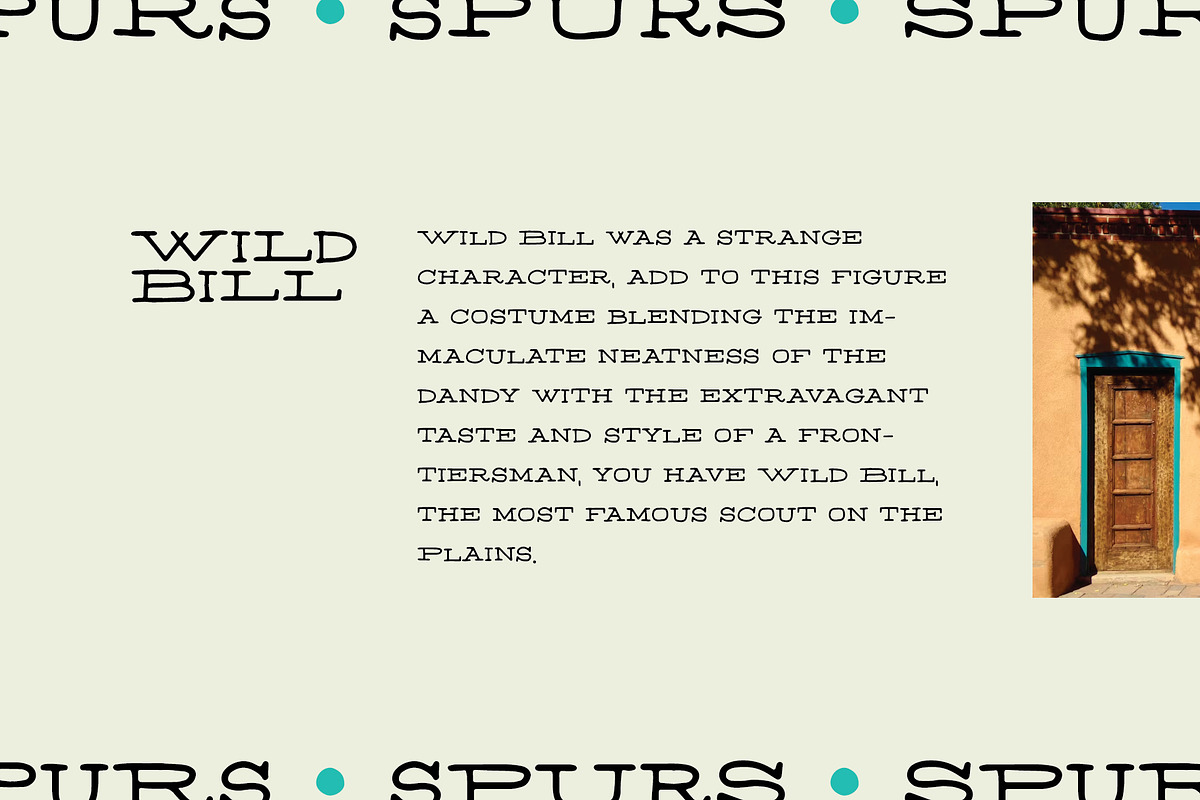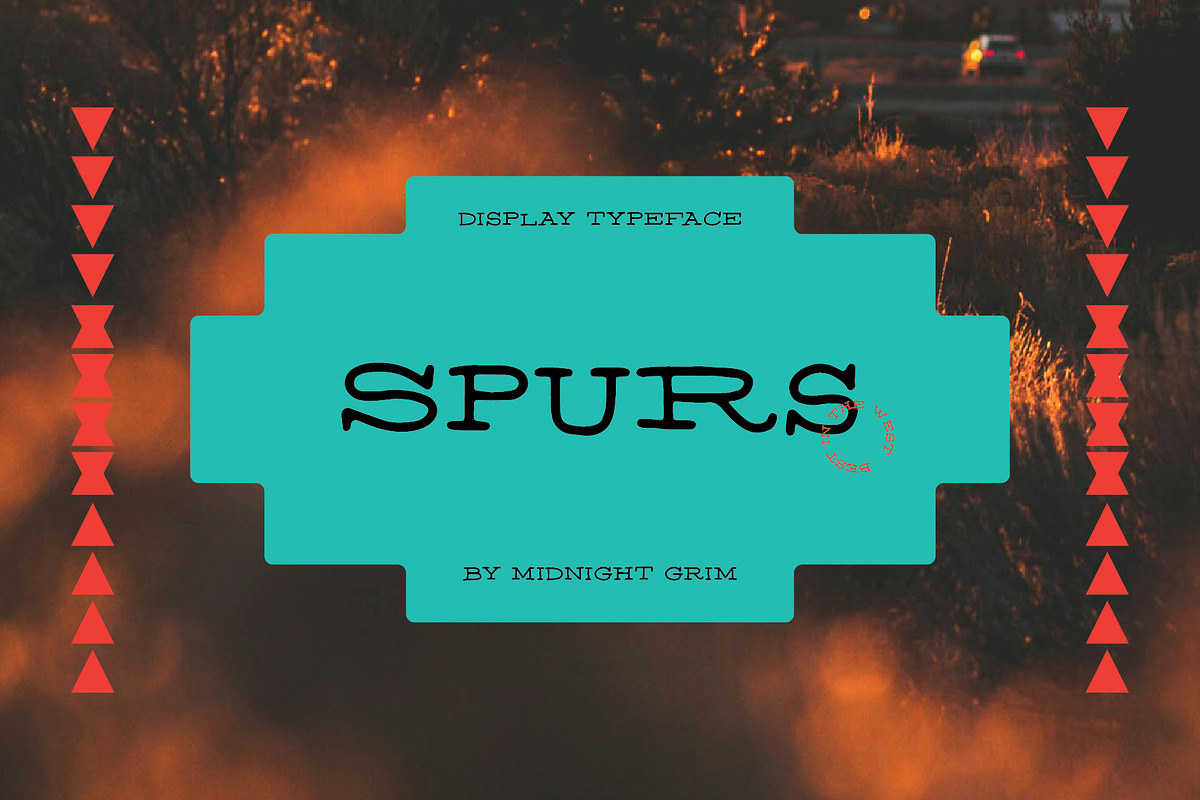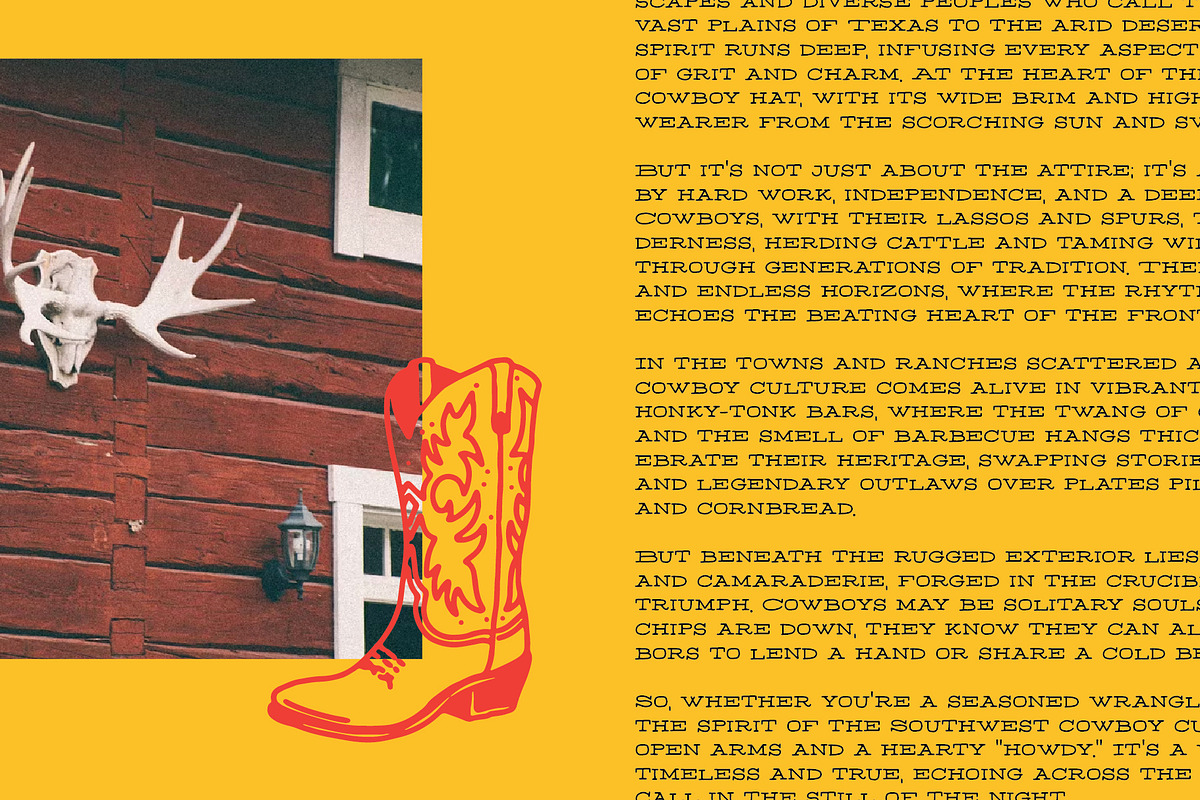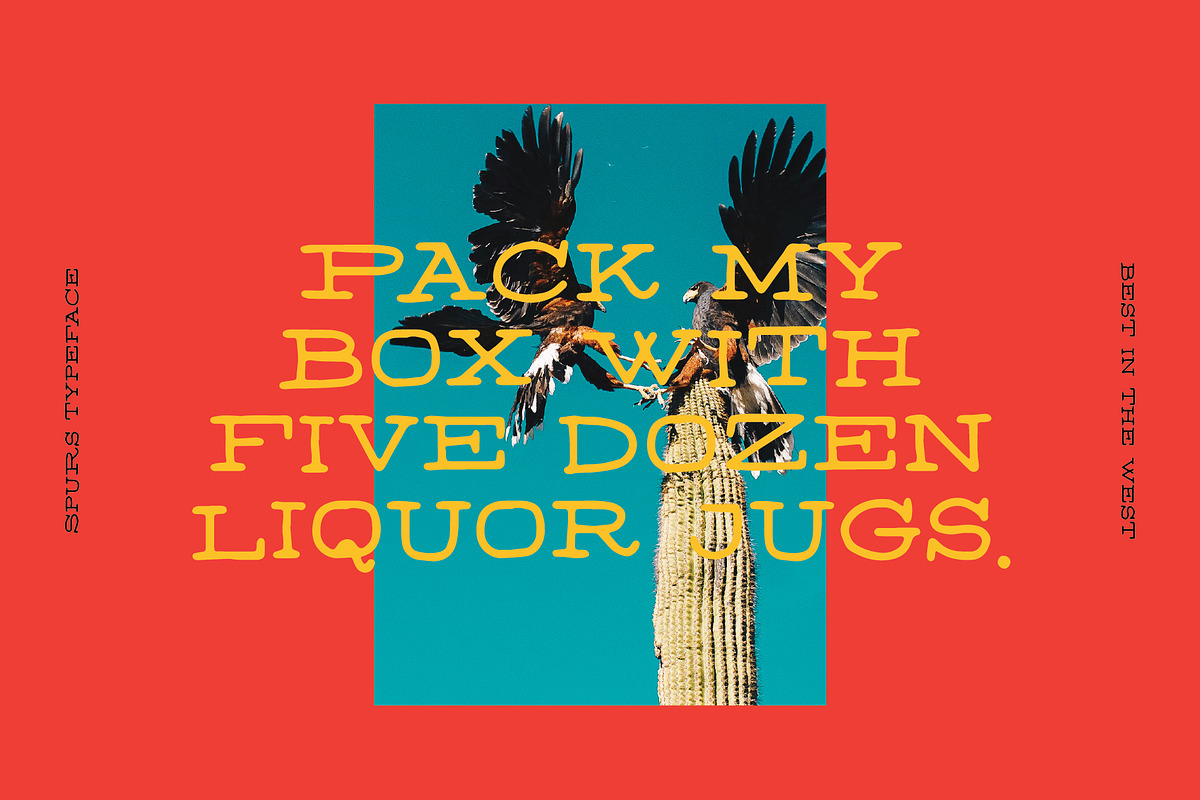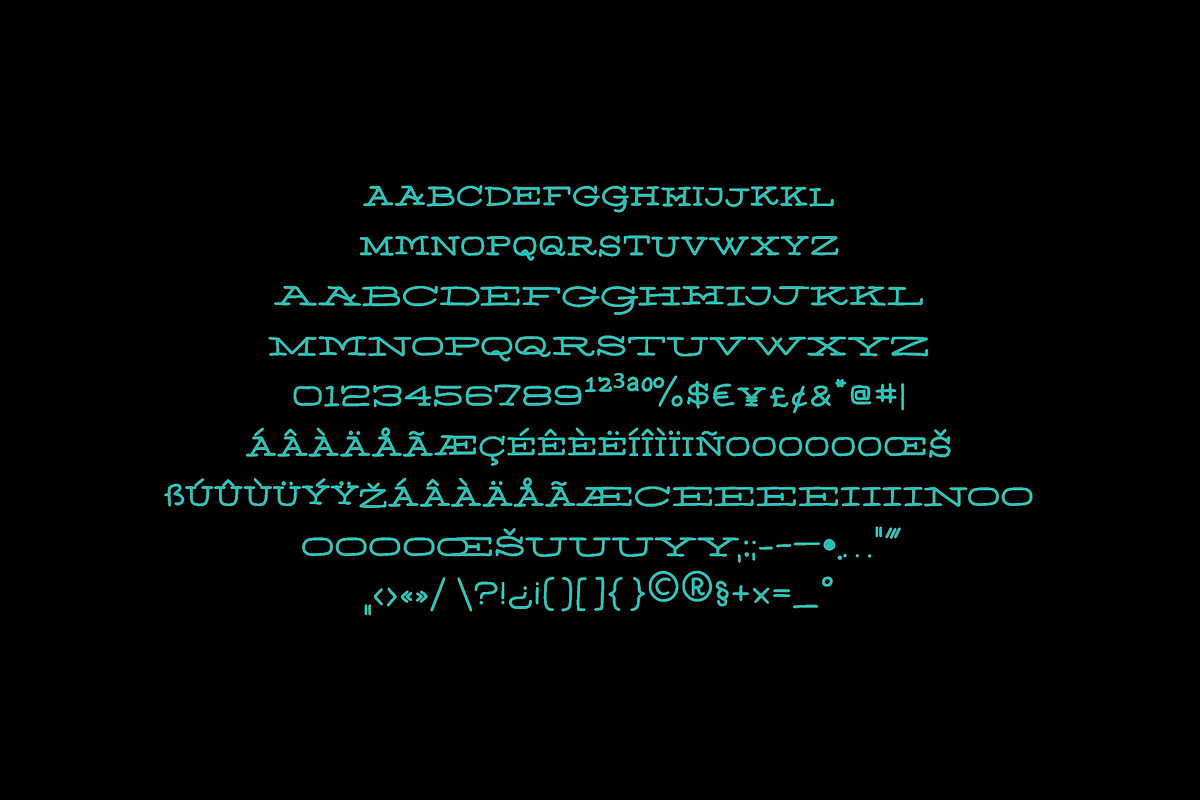
Spurs - Best in the West!
Introducing Spurs - the quintessential font for capturing the rugged charm and untamed spirit of the Wild West. Inspired by the swirling dust storms and sun-soaked plains of the Southwest, this hand-drawn script is perfect for adding a touch of frontier flair to your designs.
With its authentic cowboy aesthetic, Spurs is ideal for everything from vintage posters and signage to rustic wedding invitations and apparel. Each character is meticulously crafted to evoke the rugged elegance of the old West, with swooping descenders and bold strokes that command attention.
But don't let its rustic charm fool you - Spurs is versatile enough to suit a wide range of projects, whether you're creating a bold branding campaign or adding a playful touch to your social media graphics. And with multilingual support, you can take your designs global without missing a beat.
So saddle up and ride into the sunset with Spurs - the font that captures the essence of the Wild West in every stroke.